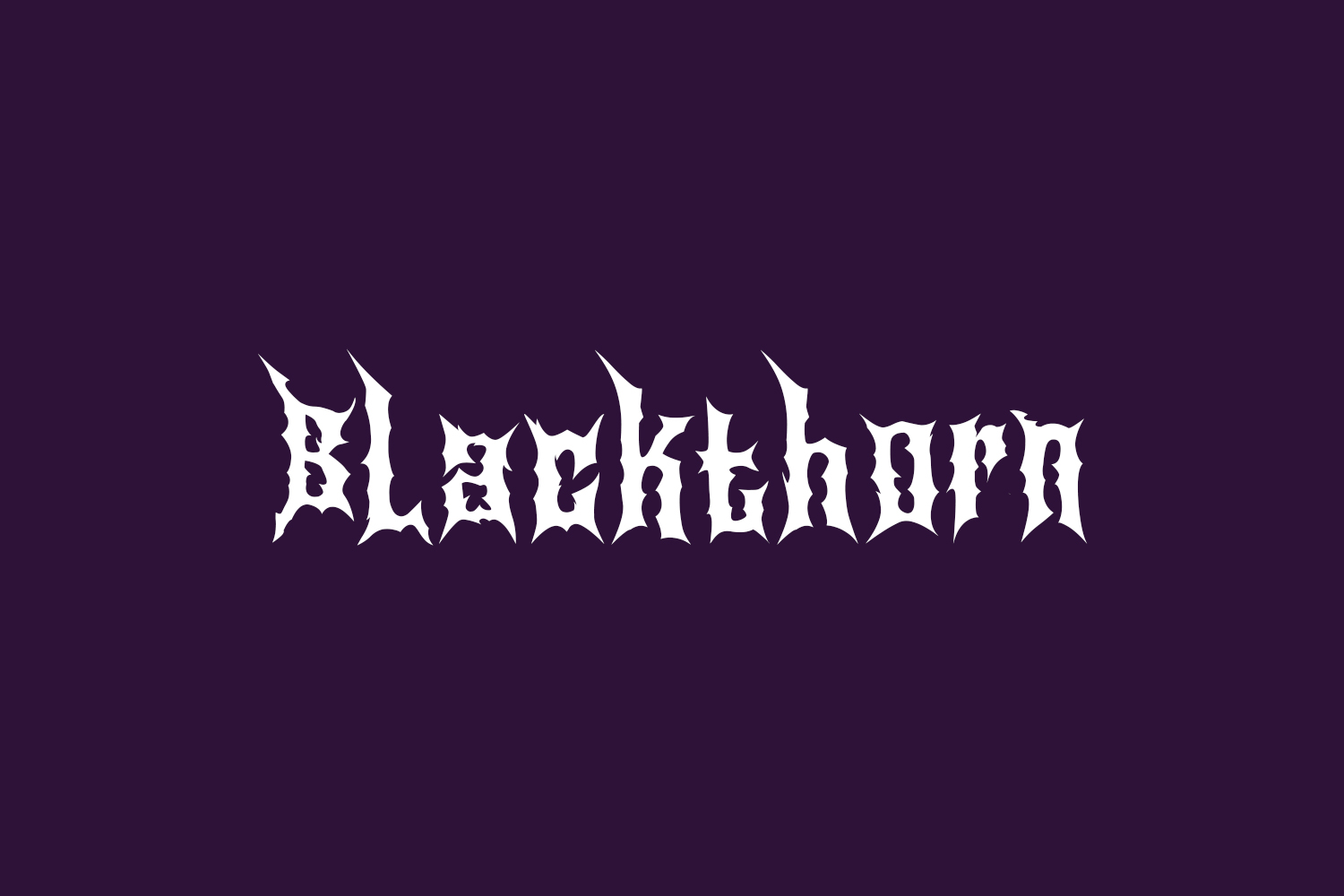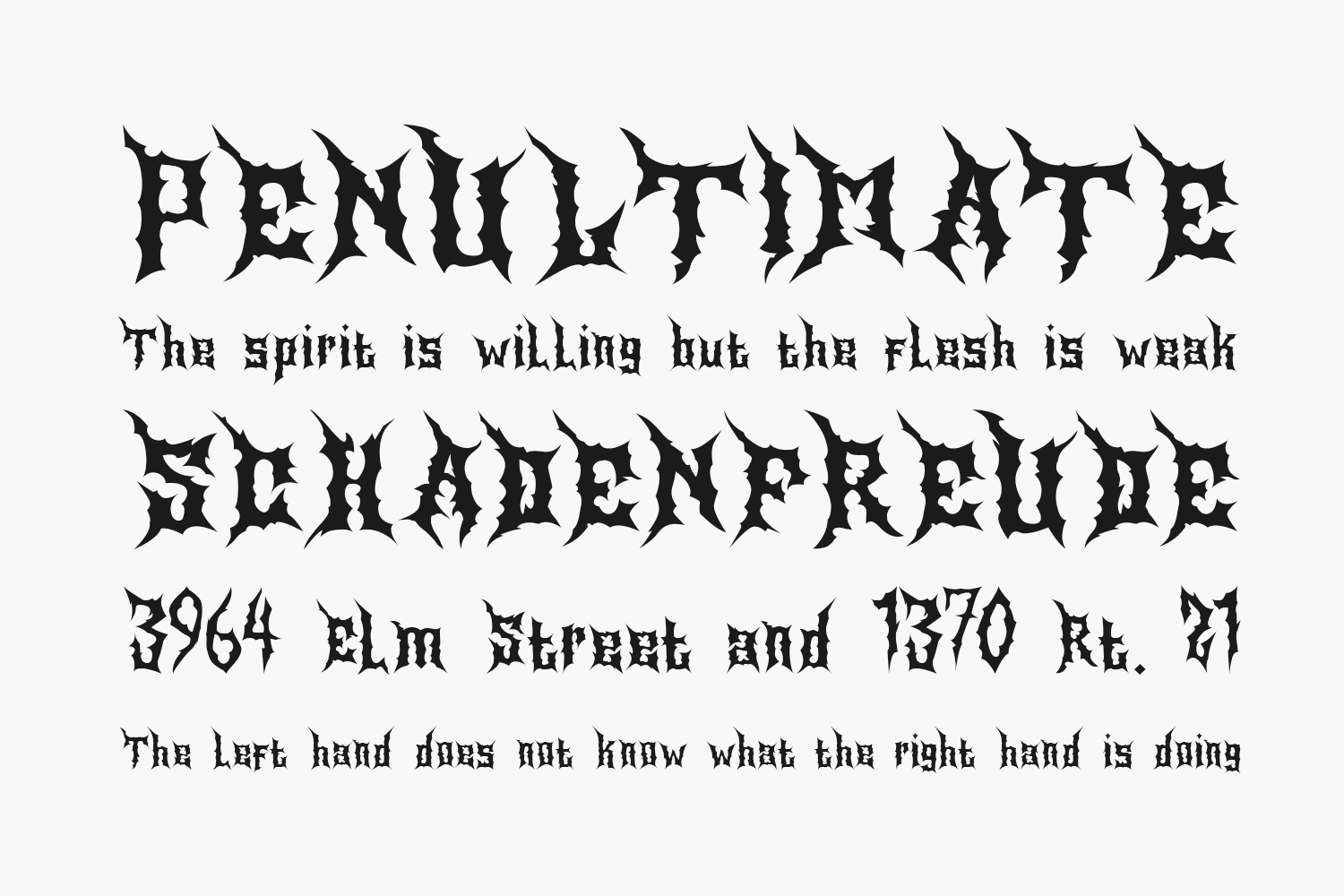
Blackthorn Free Font Family is a modern and scary blackletter font. It’s great for crafters and designers. Compatible with tools such as Photoshop and Silhouette design studio. Blackthorn Free Font Family was designed by Kong Font and is free for personal use only. Please purchase the full version for commercial use.